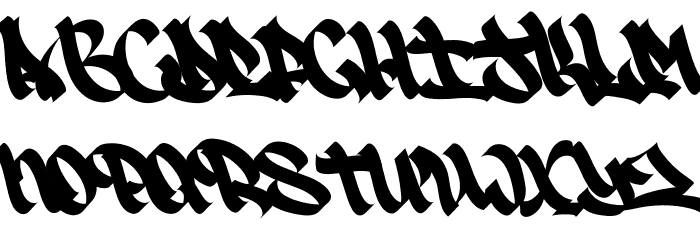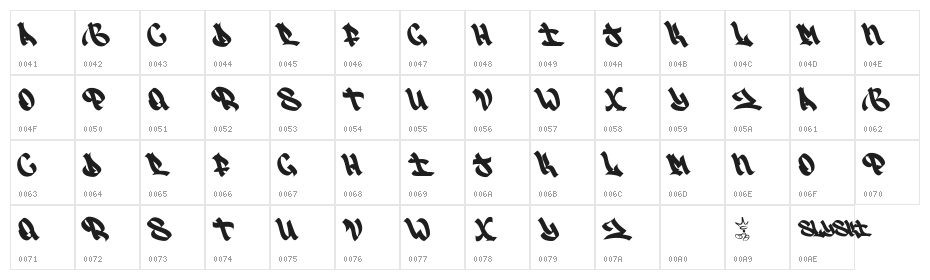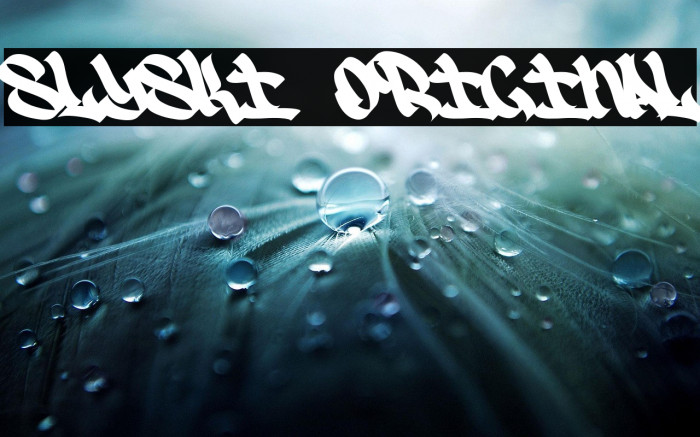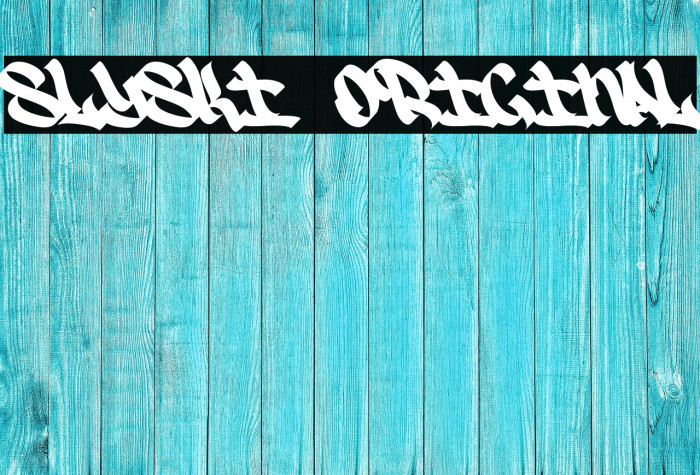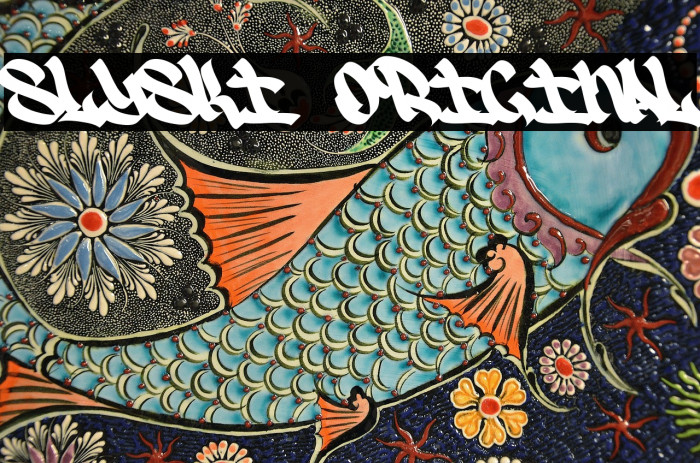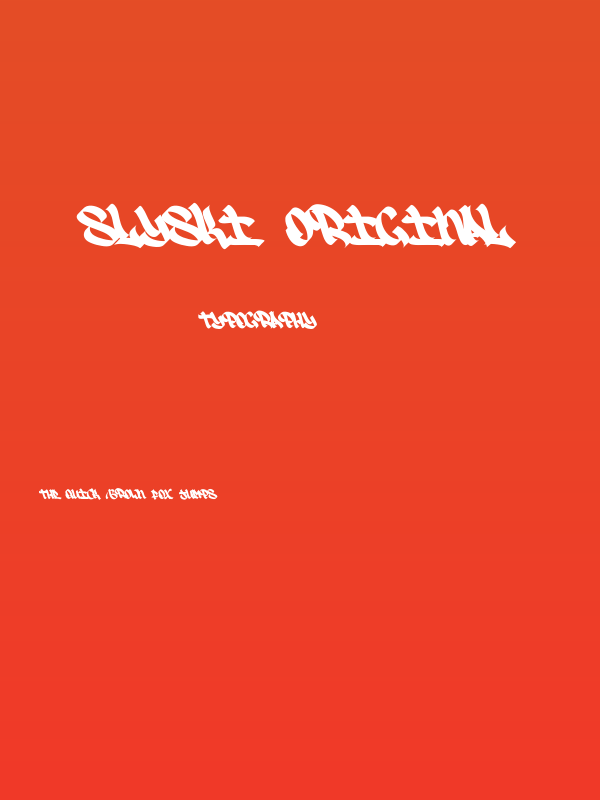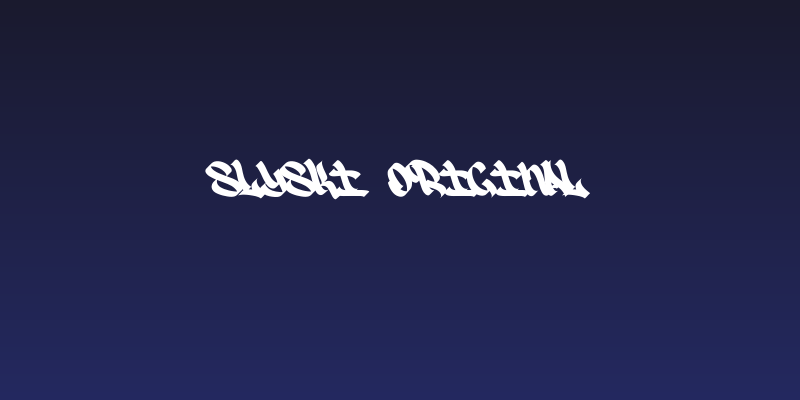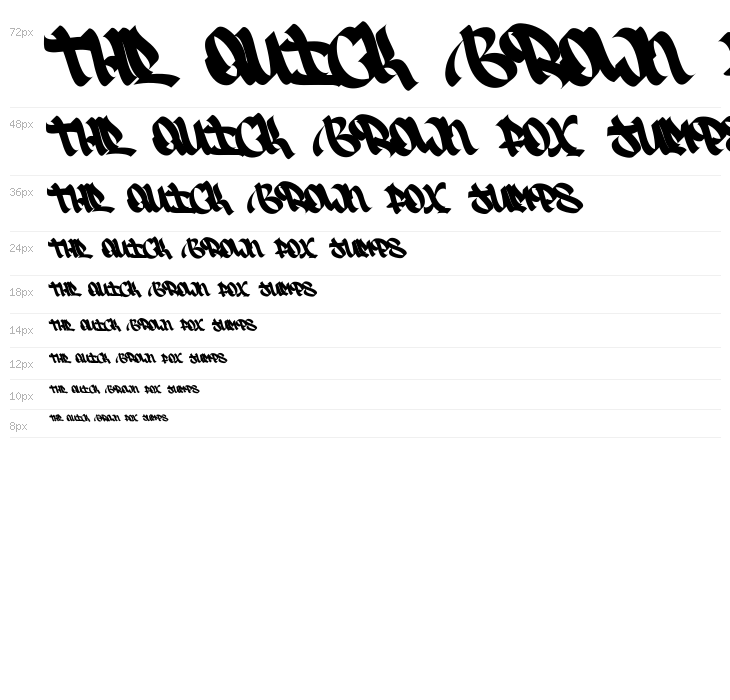
SlySki Original Font
SlySki Original Description
This font features a bold, graffiti-inspired style with sharp, angular lines and a dynamic flow. The letters are interconnected, creating a sense of movement and energy. The uppercase and lowercase letters maintain a consistent style, with exaggerated curves and points that give the font a rebellious and urban feel. The numbers and special characters follow the same aesthetic, ensuring a cohesive look across all text. This font is ideal for projects that require a bold statement, such as street art, music album covers, or edgy branding.
Overall StyleUrban, Rebellious, Dynamic
Proposed ProjectsStreet art, music album covers, edgy branding, urban-themed posters.